2023 Gerard Unger Scholarship results
We are happy to announce the winner of the Gerard Unger Scholarship 2023: the Poltik typeface by Patrycja Walczak, developed while studying at Magdalena Abakanowicz University of the Arts, Poznan, under Krzysztof Kochnowicz and Viktoriya Grabowska’s tutoring.
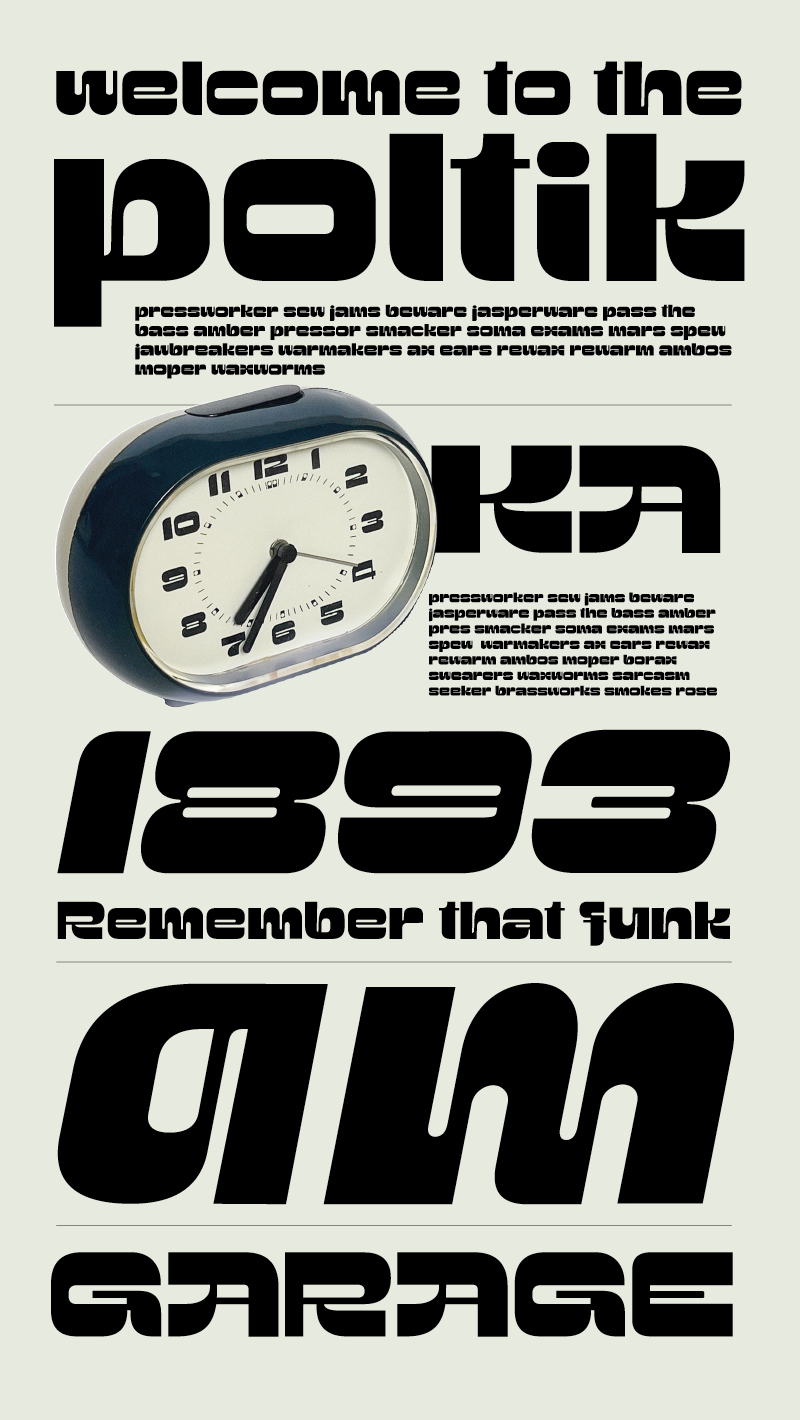Winner: Poltik by Patrycja Walczak, developed at Magdalena Abakanowicz University of the Arts Poznań. Teachers: Krzysztof Kochnowicz and Viktoriya Grabowska.
Patrycja Walczak
2023 winner: Poltik by Patrycja Walczak
Congratulations to this year’s scholarship winner, Patrycja Walczak and her Poltik font family! TypeTogether’s founders, José Scaglione and Veronika Burian, fell in love with Poltik. José said, “We enjoyed Poltik’s reinterpretation of a lettering style from half a century ago, and see a lot of potential in how this typeface could be developed and expanded. Patrycja’s outlines effortlessly fuse the self-assuredness of a seasoned designer with the creative ingenuity characteristic of a student. Her typeface is a visual delight.”
And Veronika added, “Poltik is an intriguing and fun design that convinces by its strong character and retro aesthetic. With additional complimentary styles, it will become a joyful oddball in the TypeTogether library.”
Patrycja Walczak & Poltik (WIP)
Patrycja is a young, passionate graphic design student at Magdalena Abakanowicz University in Poznań, Poland. In 2022 she took part in the Erasmus programme at the National College of Art and Design in Dublin, Ireland, where her main focus was type design and exploring the power of typography in branding and communication. Patrycja currently freelances and plans to establish her own graphic design studio.
As you can see, Patrycja has the Poltik family off to an incredible start, so over the next year or so we will introduce you to her, bring more definition to the font family, and then release it for the wildest uses you can imagine — and we really hope you use it to the extreme!
PARTICIPANTS
This year we received 98 submissions from 91 designers living all over the world — representing 46 schools in 26 countries. Sixty of the families were single script and 38 were multiscript, showcasing fourteen different scripts.
Merits
More than just the winner, we had some amazing submissions that are worthy of significant recognition and, shall we say, a little something extra. The six promising typeface projects receiving TypeTogether’s merit award are (alphabetically): Entro by Seryozha Rasskazov; Familia by János Hunor Vári; Onida by Richard McDonald; Paraguaria by Ramiro Nuñez; Rhetta by Nika Langosz; and Rubina by Lora Shtirkova.
Merit: Entro by Seryozha Rasskazov, developed at Ecal / École Cantonale d’Art de Lausanne. Teachers: Matthieu Cortat-Roller, Kai Bernau, Alice Savoie, and Irene Vlachou.
Entro
Seryozha Rasskazov
Born in Ukraine and now based in Switzerland, Seryozha graduated from the 2022 ECAL Type Design Master’s programme. He is an experimental type designer and lettering artist with a background in branding, sign painting, and a penchant for experiments. Seryozha organises international conferences, exhibitions, and design courses, and is currently filming a documentary about experimental type design.
Merit: Familia by János Hunor Vári, developed at Ecal / École Cantonale d’Art de Lausanne. Teachers: Alice Savoie, Kai Bernau, and Matthieu Cortat-Roller.
Família
János Hunor Vári
János is a Hungarian type designer, graphic designer, and art director now based in Switzerland, where he recent graduated from the Type Design Master’s programme of Ecole Cantonale d’Art de Lausanne. His practice is built on experimenting with unexpected tools and materials, using a speculative and playful approach to serve both cultural and commercial purposes. Besides his professional practice, he produces music, publishes essays and literature, and curates the platform for experimental typography called Dunno How To Write.
Merit: Onida by Richard McDonald, developed at MA Communication Design: Typeface Design Pathway, University of Reading. Teachers: Gerry Leonidas and Fred Smeijers.
Onida
Richard McDonald
After spending the better part of ten years working as an in-house graphic designer, Richard took a year off to study Typeface Design at the University of Reading. Since graduating, he has been working on freelance design projects, drawing typefaces, and printing letterpress from his small studio space in London.
Merit: Paraguaria by Ramiro Nuñez, developed at Maestría en Tipografía, Universidad de Buenos Aires – UBA. Teachers: Fer Cozzi and Yorlmar Campos.
Paraguaria
Ramiro Nuñez
Ramiro is a graphic designer, instructor at FAU UNNE, and is completing a Master’s degree in Typography at FADU Universidad de Buenos Aires. He works in calligraphy, lettering, and typography linked to the Guarani language and culture from the Argentinian region of Corrientes.
Merit: Rhetta by Nika Langosz, developed at TypeMedia, at the Royal Academy of Art, The Hague (KABK). Teacher: Erik van Blokland.
Rhetta
Nika Langosz
Hailing from Poland, Nika graduated from the Academy of Fine Arts in Wrocław with high honours. She attended a Monotype internship, completed her Master’s degree from TypeMedia in 2023, and is now freelancing for Threedotstype. Nika sometimes feels like a fox person — like cat software running on dog hardware. She likes the raw and vernacular typography found in repair shops, monuments, chapels, tombstones, tools, and print.
Merit: Rubina by Lora Shtirkova, developed at TypeMedia, at the Royal Academy of Art, The Hague (KABK). Teachers: Erik van Blokland, Peter Verheul, and Paul van Der Laan.
Rubina
Lora Shtirkova
Lora is a Bulgarian type and graphic designer with a strong interest in calligraphy and type. She completed the 2021 TypeMedia Master’s programme at The Royal Academy of Art in The Hague, and then received the opportunity to intern at Blast Foundry in the Netherlands. Her previous work experience with typography and layouts inspired her to create Rubina, a diverse family of typefaces for different purposes and sizes. Lora is now working as a freelance type designer focusing on Cyrillic and Latin designs.